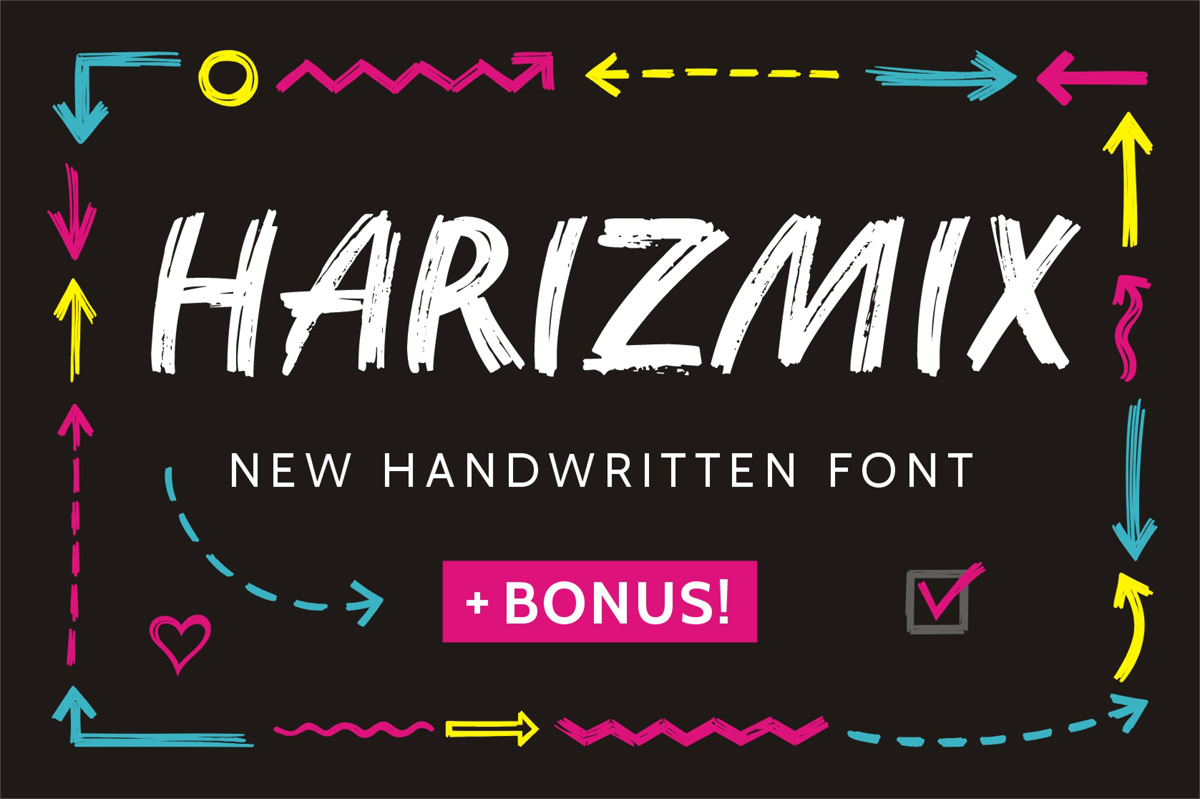
Harizmix Handwritten Marker Font
Harizmix Font - new modern original handwritten font in marker style for presentation, advertising, poster, logos and other creative projects. Expressive font with good proportions and excellent readability.